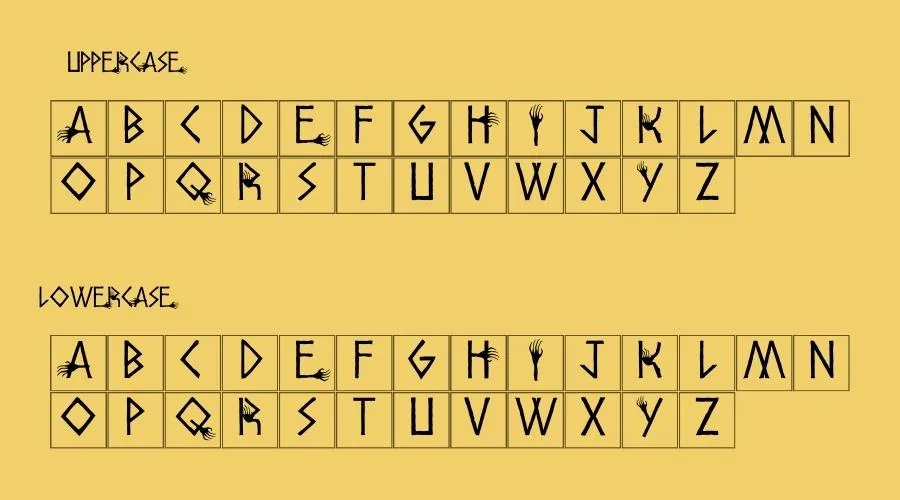
About Amhole Font
The Amhole Font from Brain Eaters Font Co and it established on Horror, B-Movies, Exploitation Muzak, Sci-Fi, and other junk. This attractive texture is boosted through the punk band Part 1 and contains one unique style.
The glyph count of this typeface is 51. The character set of this typeface is 106 and is included in uppercase letters, symbols, digits, and many other unique types of alphabet sets.